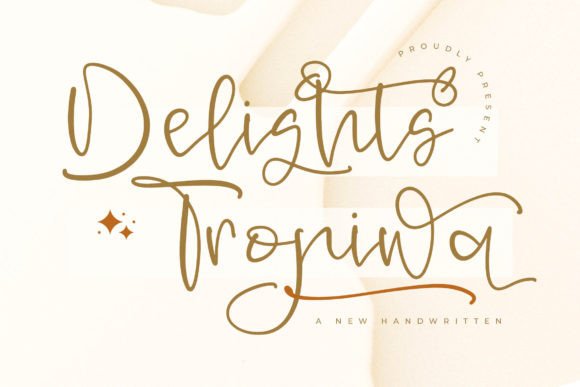
Introducing Delishts Tropiwa Font: A Sweet and Friendly Handwritten Font
Are you looking for a font that can add a touch of sweetness and friendliness to your designs? Look no further than Delishts Tropiwa, a beautiful handwritten font that is sure to capture the hearts of your audience. In this article, we’ll take a closer look at Delishts Tropiwa, its unique features, and how you can use it to elevate your designs.
What is Delishts Tropiwa?
Delishts Tropiwa is a sweet and friendly handwritten font that is designed to bring a touch of warmth and personality to your designs. Its natural and unique style makes it incredibly fitting to a large pool of designs, from invitations and greeting cards to branding and advertising materials.
Key Features of Delishts Tropiwa
- Handwritten style: Delishts Tropiwa is a handwritten font that is designed to look like it was written with a pen or pencil.
- Unique and natural style: The font has a unique and natural style that sets it apart from other fonts.
- Sweet and friendly: Delishts Tropiwa is a sweet and friendly font that is perfect for designs that require a touch of warmth and personality.
- Highly versatile: The font is highly versatile and can be used for a wide range of designs, from invitations and greeting cards to branding and advertising materials.
The Benefits of Using Delishts Tropiwa
There are many benefits to using Delishts Tropiwa in your designs. Here are just a few:
The Benefits of Delishts Tropiwa
- Adds a personal touch: Delishts Tropiwa adds a personal touch to your designs, making them feel more approachable and friendly.
- Stand out from the crowd: The font’s unique and natural style helps your designs stand out from the crowd and grab the attention of your audience.
- Perfect for creative projects: Delishts Tropiwa is perfect for creative projects, such as art, craft, and DIY designs.
- Easy to read: The font is easy to read, making it perfect for designs that require a lot of text.
How to Use Delishts Tropiwa
Delishts Tropiwa is a highly versatile font that can be used for a wide range of designs. Here are a few ideas to get you started:
Use Cases for Delishts Tropiwa
- Invitations and greeting cards: Delishts Tropiwa is perfect for invitations and greeting cards, adding a touch of warmth and personality to your designs.
- Branding and advertising: The font can be used for branding and advertising materials, such as logos, brochures, and flyers.
- Art and craft designs: Delishts Tropiwa is perfect for art and craft designs, such as handmade cards, scrapbooking, and DIY projects.
- Digital designs: The font can be used for digital designs, such as social media graphics, blog posts, and website headers.
Tips for Using Delishts Tropiwa
Here are a few tips for using Delishts Tropiwa:
Tips for Using Delishts Tropiwa
- Use it with a clear background: Delishts Tropiwa looks best with a clear background, so try using it on a white or light-colored background.
- Experiment with colors: The font looks great in a variety of colors, so don’t be afraid to experiment and find the perfect color for your design.
- Mix and match with other fonts: Delishts Tropiwa can be paired with other fonts to create a unique and interesting design.
- Pay attention to font size: Make sure to adjust the font size to suit your design, as Delishts Tropiwa can look great in a variety of sizes.
Delishts Tropiwa is a sweet and friendly handwritten font that is perfect for adding a touch of warmth and personality to your designs. Its unique and natural style makes it incredibly versatile, and it’s easy to use in a wide range of designs. Whether you’re creating invitations, branding materials, or digital designs, Delishts Tropiwa is a great choice. So why not give it a try and see how it can elevate your designs?